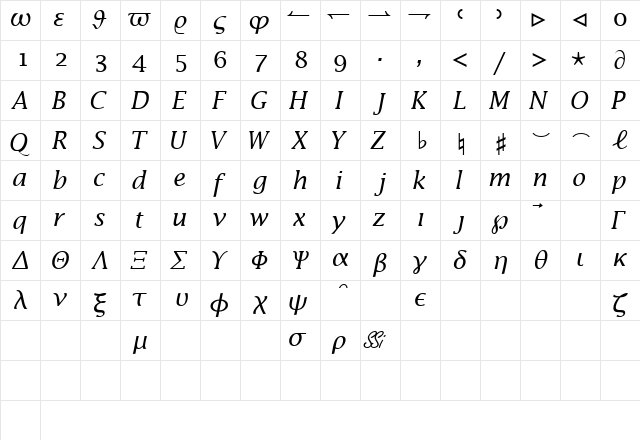
MachadoMathSSK Italic Font Preview
MachadoMathSSK Italic
MachadoMathSSK Italic Font Details
Design Context for MachadoMathSSK Typeface
MachadoMathSSK offers clean, dependable letterforms without strong stylistic allegiance, making it a practical choice for designers who need flexibility. The dynamic lean of this cut emphasises speed and emphasis in any layout.
Pro Tip: Try MachadoMathSSK for annotation and caption copy alongside an upright companion — the contrast in angle creates a dynamic but ordered typographic system.